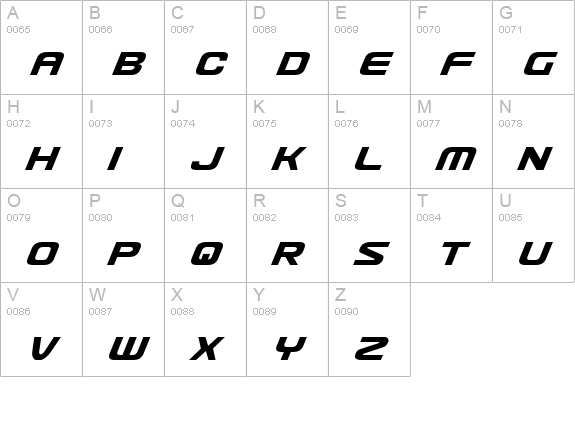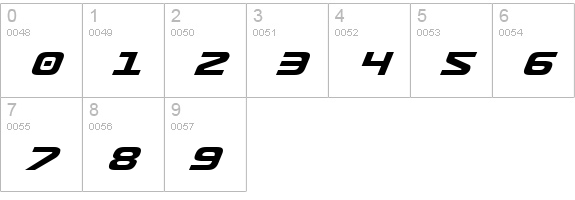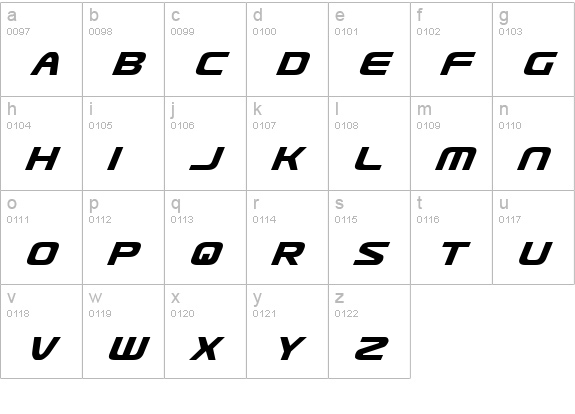
Usuzi Italic Font Details
Usuzi Italic is a distinctive, italic variant in the Usuzi typeface family \xE2\x80\x94 well suited to design and typography projects.
Usuzi Italic is a stunning font that exudes elegance and sophistication. Its sleek and modern design makes it perfect for a wide range of creative projects, from branding and advertising to digital media and print materials. The italicized letterforms lend a sense of movement and fluidity, adding a touch of dynamism to any text. What makes Usuzi Italic even more appealing is that it is freely available to download at FontsMarket.com. This means that designers and enthusiasts alike can easily access this beautiful font without any cost. Whether you are a professional designer looking to add a touch of class to your latest project or a hobbyist searching for a font that stands out from the crowd, Usuzi Italic is the perfect choice. With its wide range of characters, including uppercase and lowercase letters, numbers, and punctuation marks, Usuzi Italic offers versatility and flexibility. It can be used in various design applications, such as logos, headlines, posters, invitations, and more. The font's clean lines and balanced proportions ensure legibility at any size, making it suitable for both small and large-scale projects. Usuzi Italic's timeless appeal lies in its ability to seamlessly blend with different design styles, whether it be minimalist, vintage, or contemporary. Its unique italicized style adds a touch of sophistication and uniqueness to any text, elevating it to a whole new level. Download Usuzi Italic for free at FontsMarket.com and let your creativity soar. Whether you're designing a professional brand identity or creating personalized artwork, this font will undoubtedly enhance your work and leave a lasting impression on your audience. Don't miss out on this incredible opportunity to access a high-quality font without any cost.